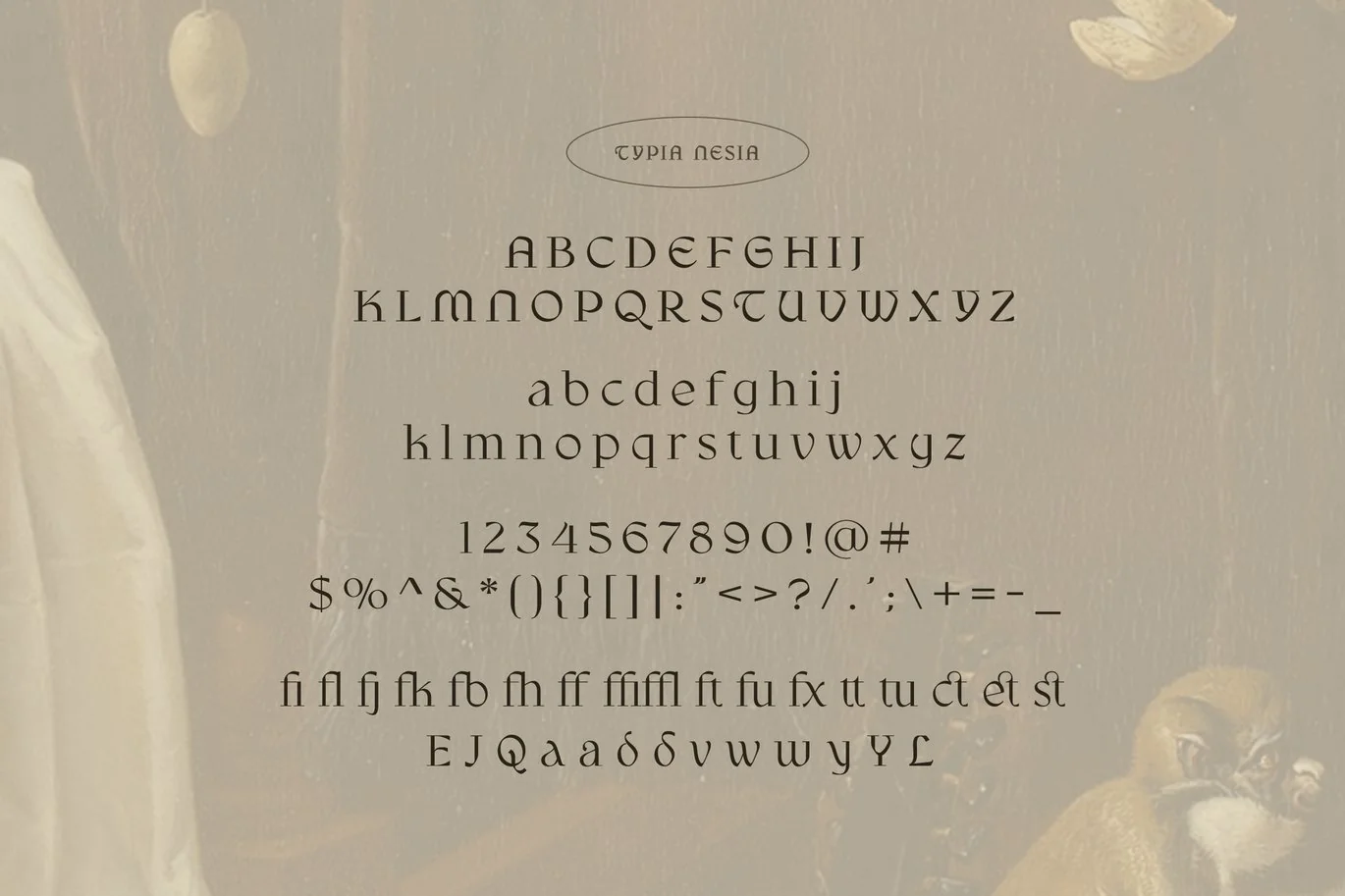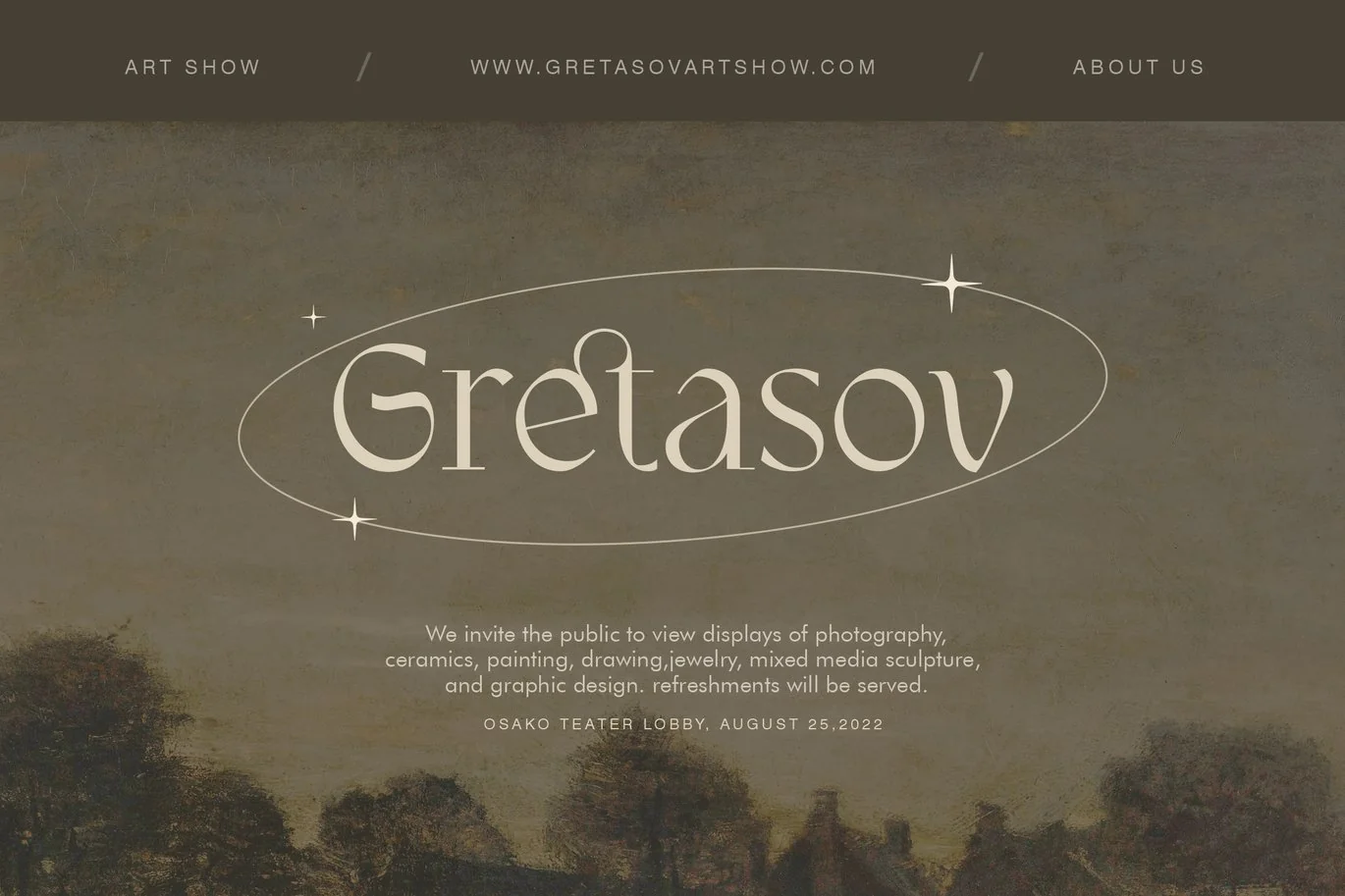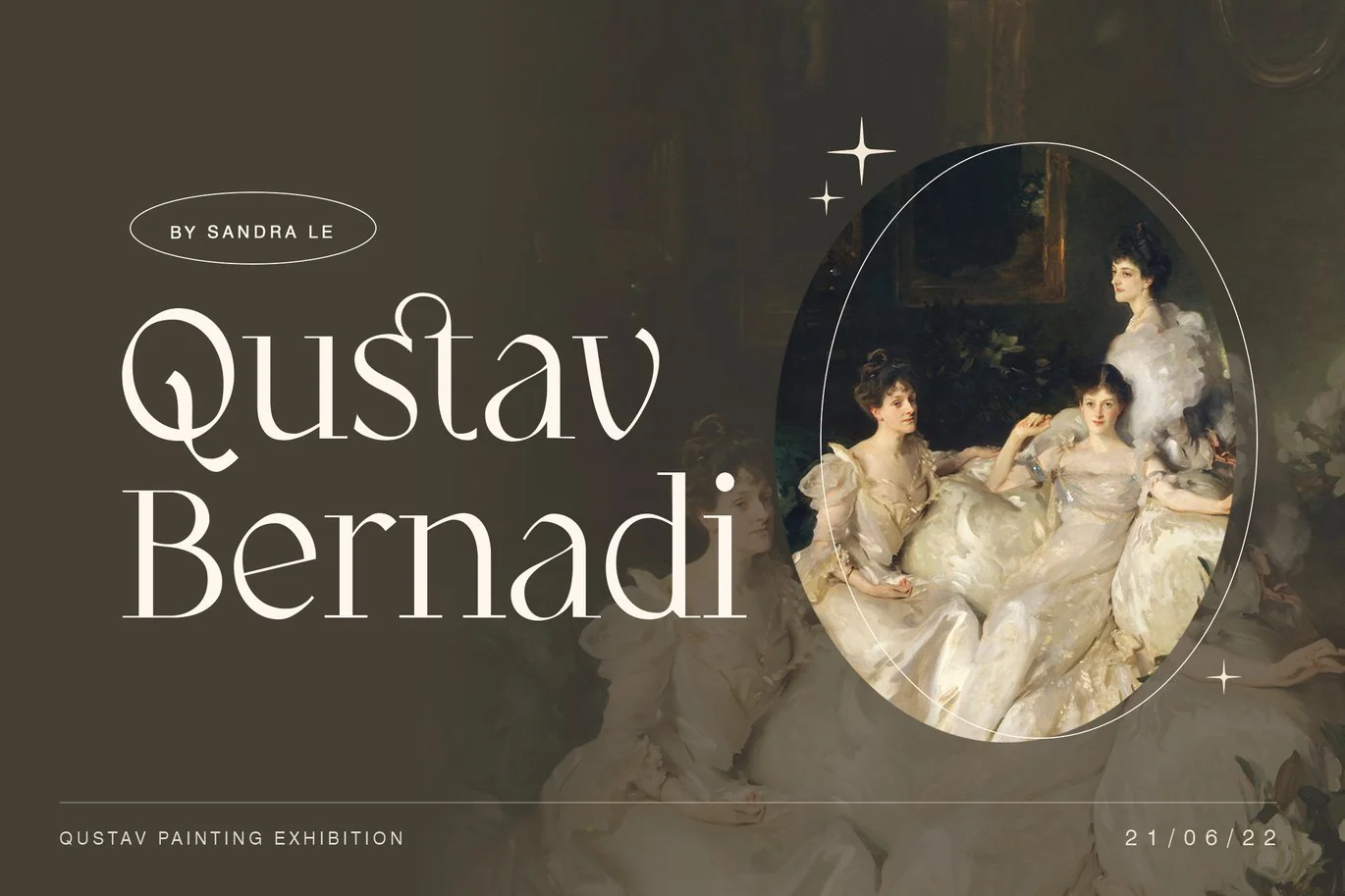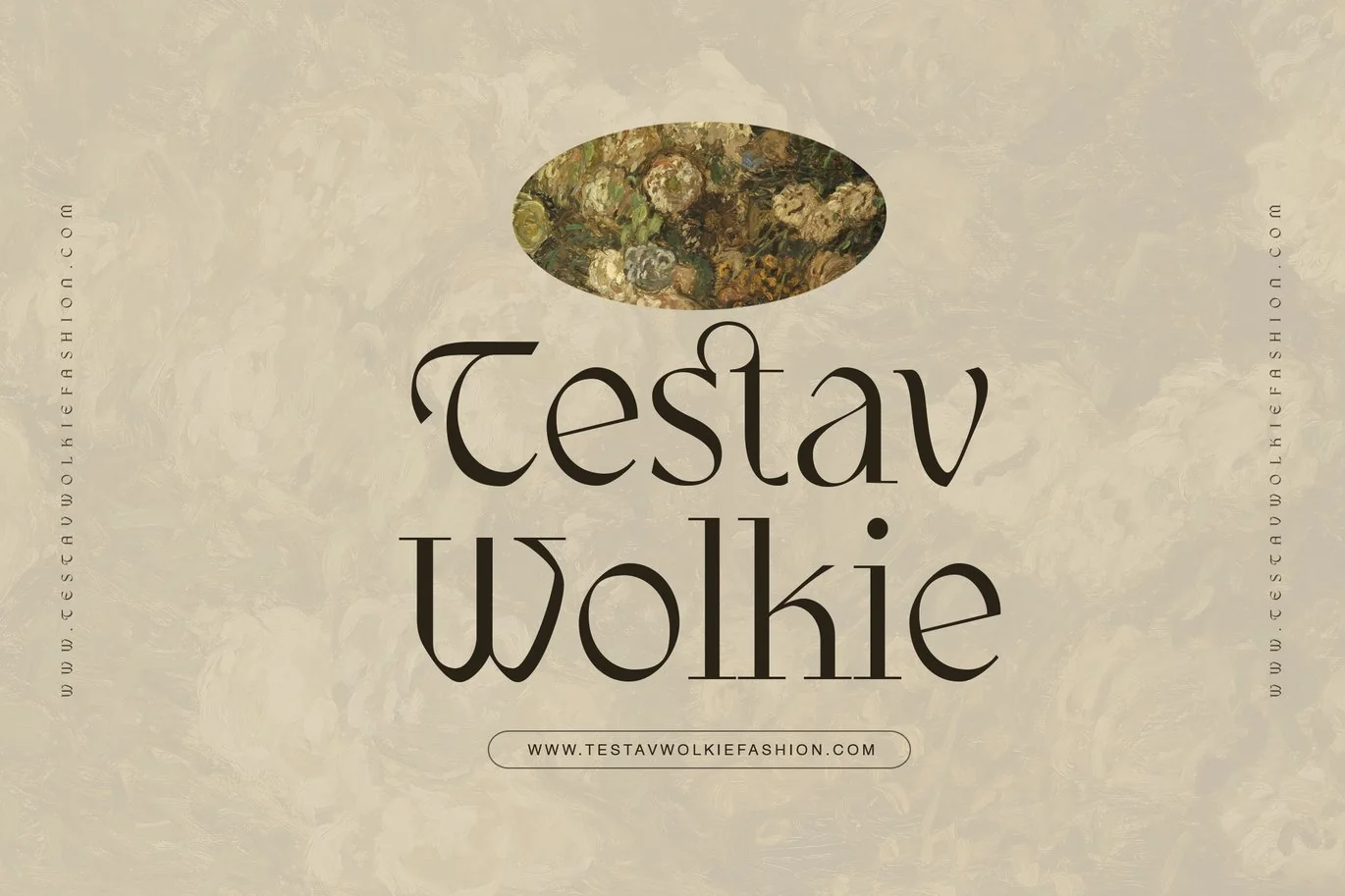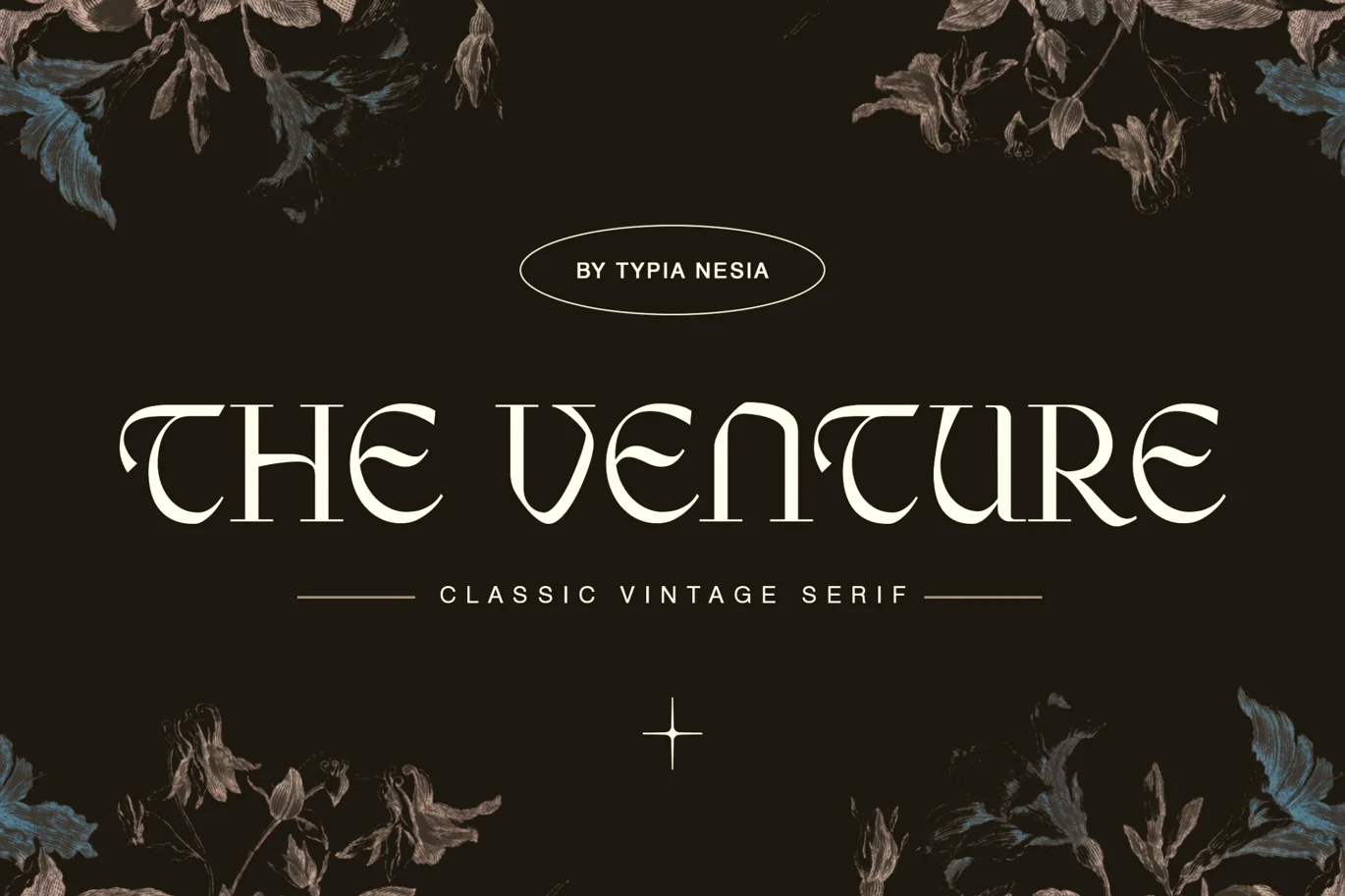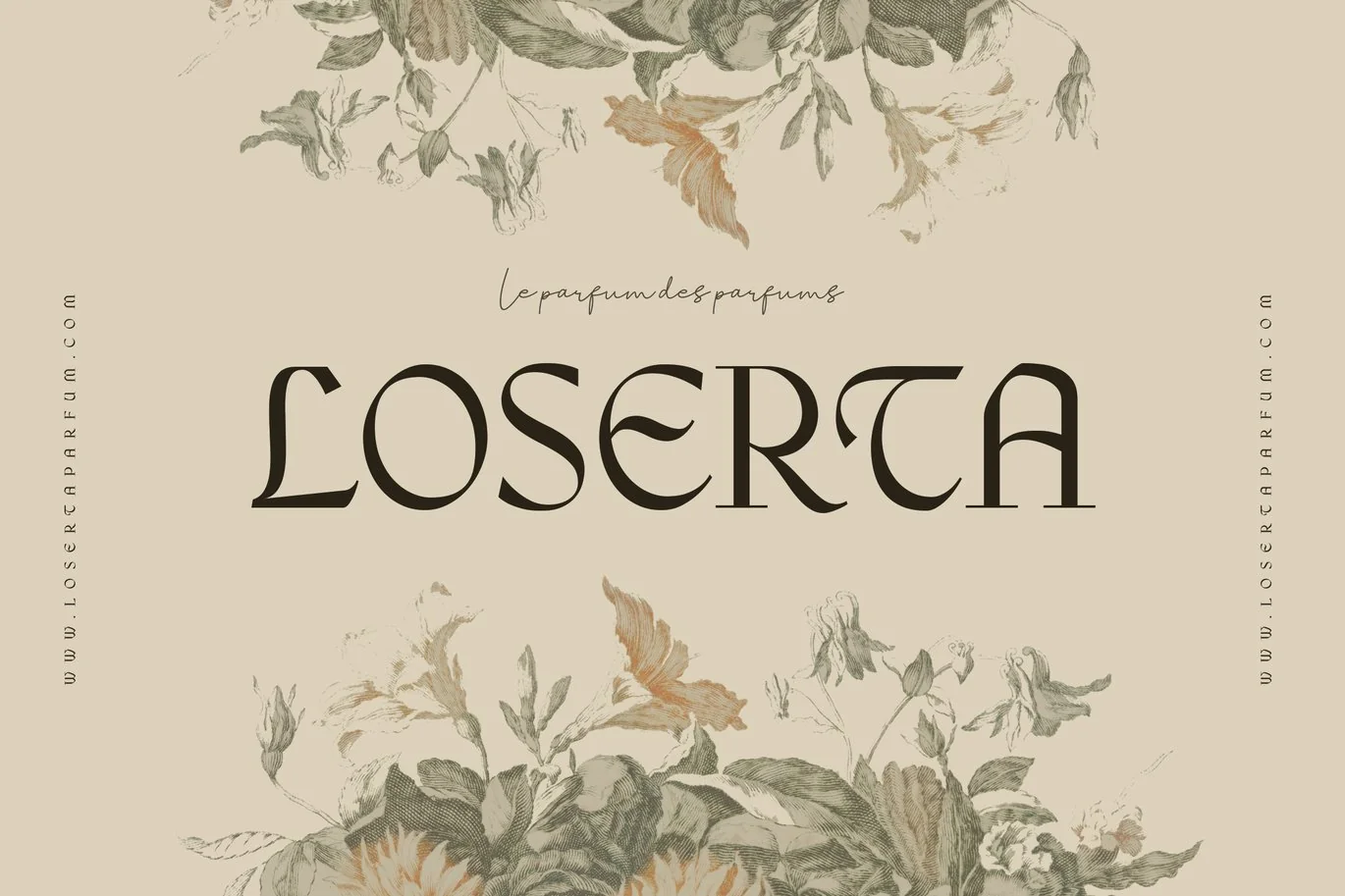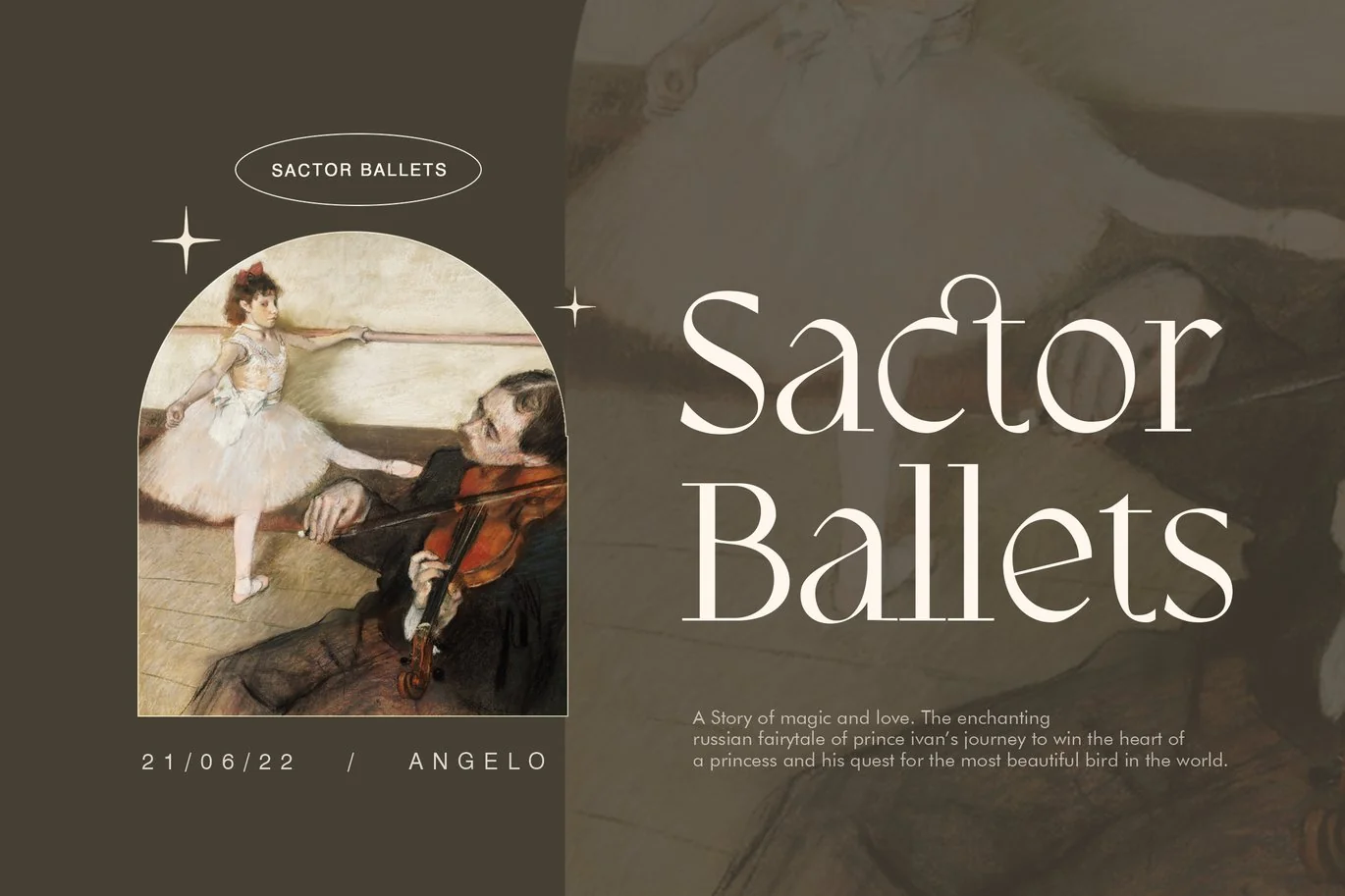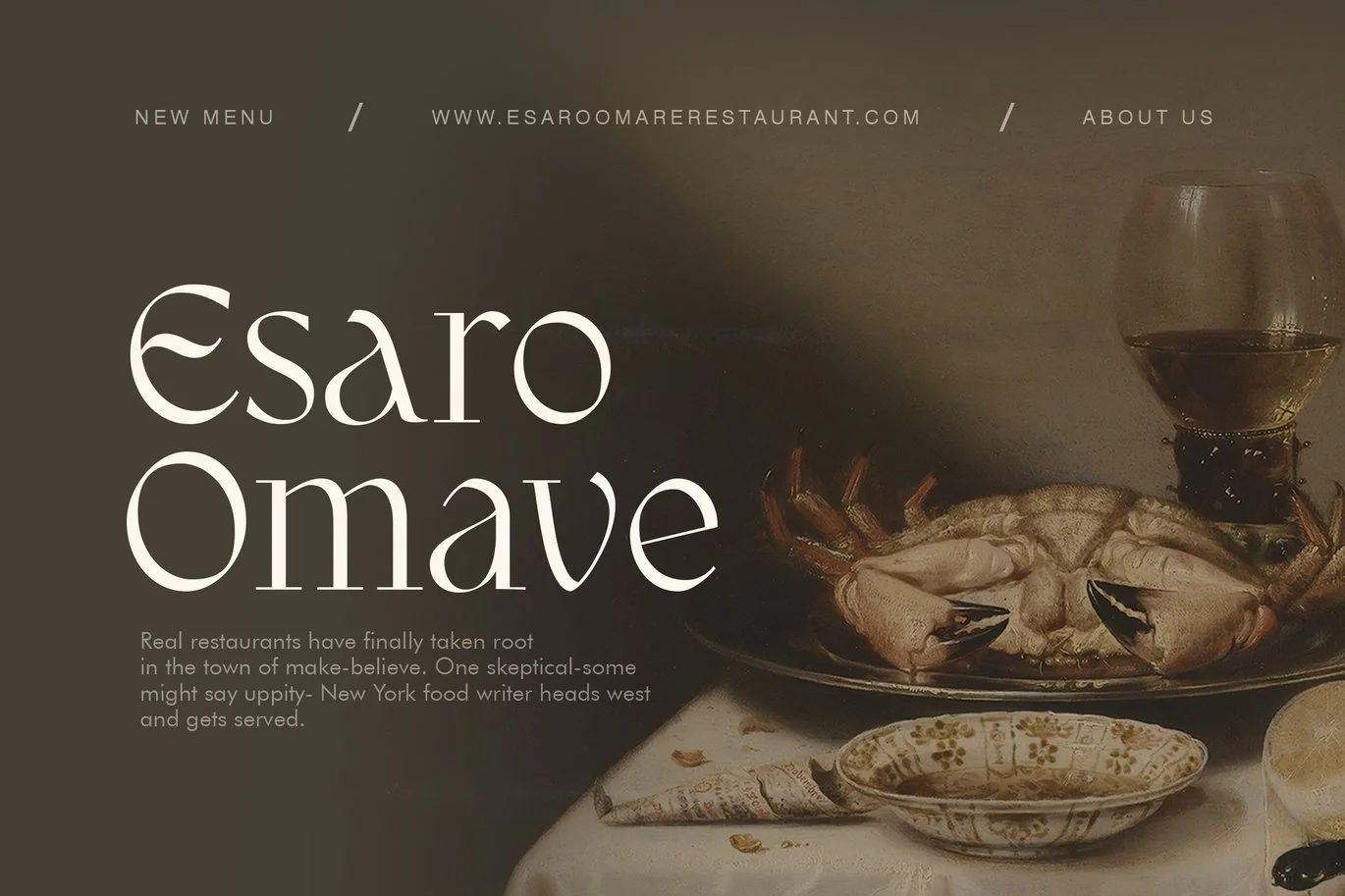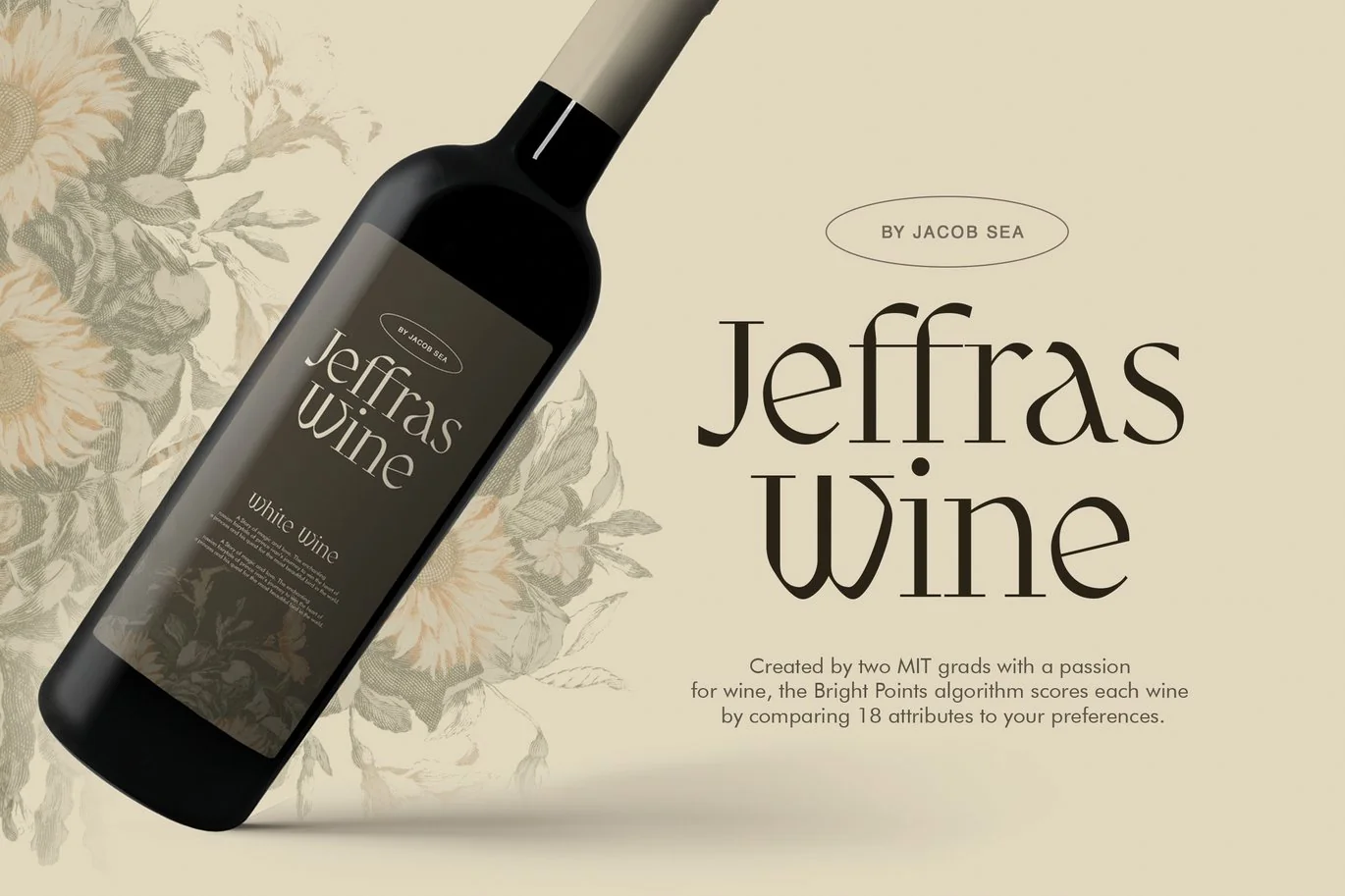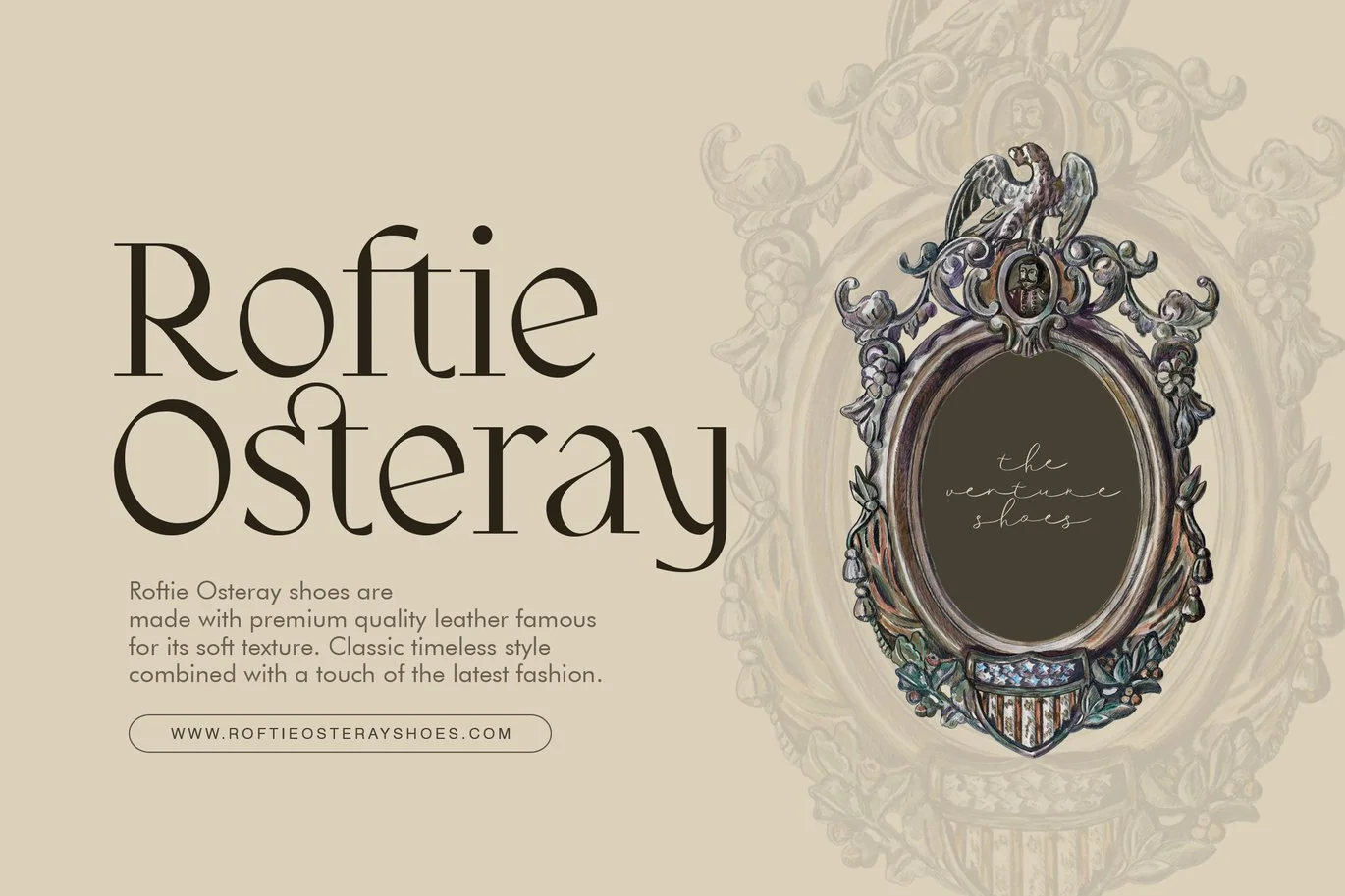
The Venture – Vintage Classic Luxury Serif Font
The Venture – Vintage / Classic Fantasy Serif – Royal and Luxury Display Font
The Venture Serif is perfect for your up coming projects. Such as luxury logo and branding, classy editorial design, woman magazine, cosmetic brand, fashion promotional, art gallery branding, museum, historical of architectural, boutique branding, stationery design, blog design, modern advertising design, card invitation, art quote, home decor, fantasy movie / game, novel / book / cover title, special events and any more.